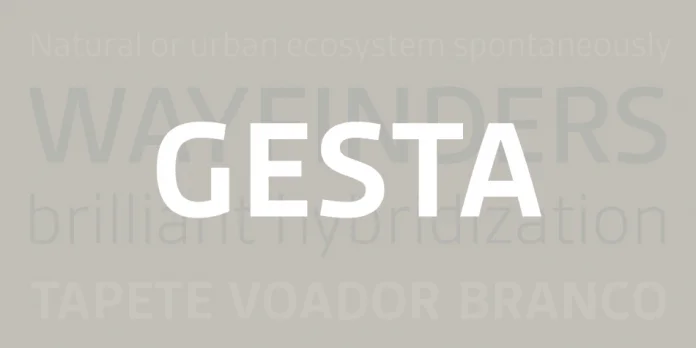
Gesta Font is perfect for heroic branding projects, epic storytelling designs, adventure game interfaces, legendary book covers, mythological event posters, heroic sports team logos, grand theater productions, epic movie titles, powerful corporate presentations, and inspiring motivational campaigns.
Gesta Font is exciting because it embodies the grandeur and heroic spirit of legendary tales through powerful letterforms that convey strength, nobility, and epic adventure with commanding presence. This magnificently designed typeface combines classical heroic proportions with contemporary functionality, making it perfect for brands that want to communicate leadership, courage, and legendary achievement that inspires audiences to greatness.
The Gesta Font family includes bold heroic weights with epic character styling, featuring legendary design elements and noble decorative variations. The font showcases heroic design details, epic proportions, and powerful character characteristics that create a comprehensive typographic system for inspirational and achievement-focused brand applications.
Gesta Font Free Download provides designers with access to premium heroic typography that brings authentic legendary character to contemporary design projects. This expertly crafted typeface has been developed to capture the spirit of great achievements and heroic deeds while ensuring optimal performance in inspirational marketing applications. The font's powerful character and epic appeal make it ideal for leadership brands and achievement-oriented organizations.
The heroic sophistication of Gesta Font makes it an essential tool for sports organizations, leadership development companies, and inspirational brands that need typography capable of communicating greatness and legendary achievement. The font's noble character helps establish immediate associations with success, courage, and epic accomplishments that resonate with audiences seeking inspiration and excellence.
Sports teams, leadership coaches, and achievement-focused businesses consistently choose Gesta Font for its ability to convey heroic strength and legendary sophistication through typography. The font excels in applications where establishing inspirational credibility and heroic appeal are essential to brand positioning, making it particularly effective for sports marketing, leadership development, and motivational brands targeting achievement-oriented consumers.
This font's comprehensive character set includes heroically-styled letterforms, epic numerals, powerful punctuation marks, and legendary symbols that support authentic heroic typography composition. The consistent noble styling maintains the epic achievement theme throughout all characters while ensuring professional readability across all inspirational and heroic design projects requiring Gesta Font Free Download functionality.